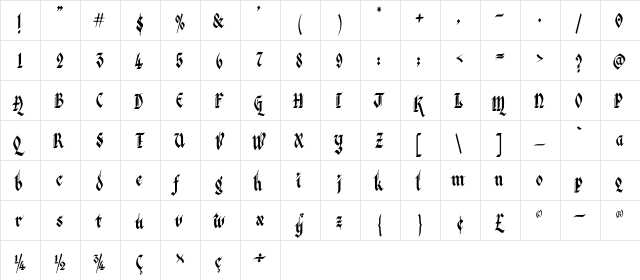
Kingthings Italique Regular
Design Context for Kingthings Italique Typeface
Kingthings Italique is a composed and adaptable typeface that performs quietly and consistently across a wide range of design contexts. The delicate stroke weight brings airiness and refinement to layouts.
Pro Tip: Use Kingthings Italique in both headline and body roles to test its range before committing to a single application.